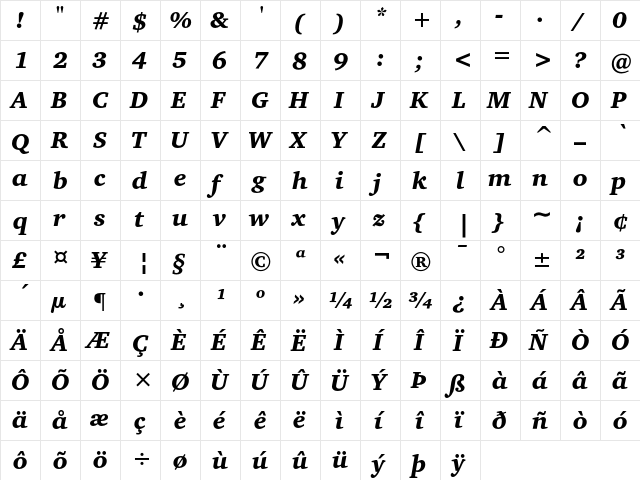
CharterITCBlack Italic
| Foundry | ParaType Inc. |
| Designer | Matthew Carter, Vladimir Yefimov |
Design Context for CharterITCBlack Typeface
CharterITCBlack offers clean, dependable letterforms without strong stylistic allegiance, making it a practical choice for designers who need flexibility. The slanted form adds forward momentum and visual energy.